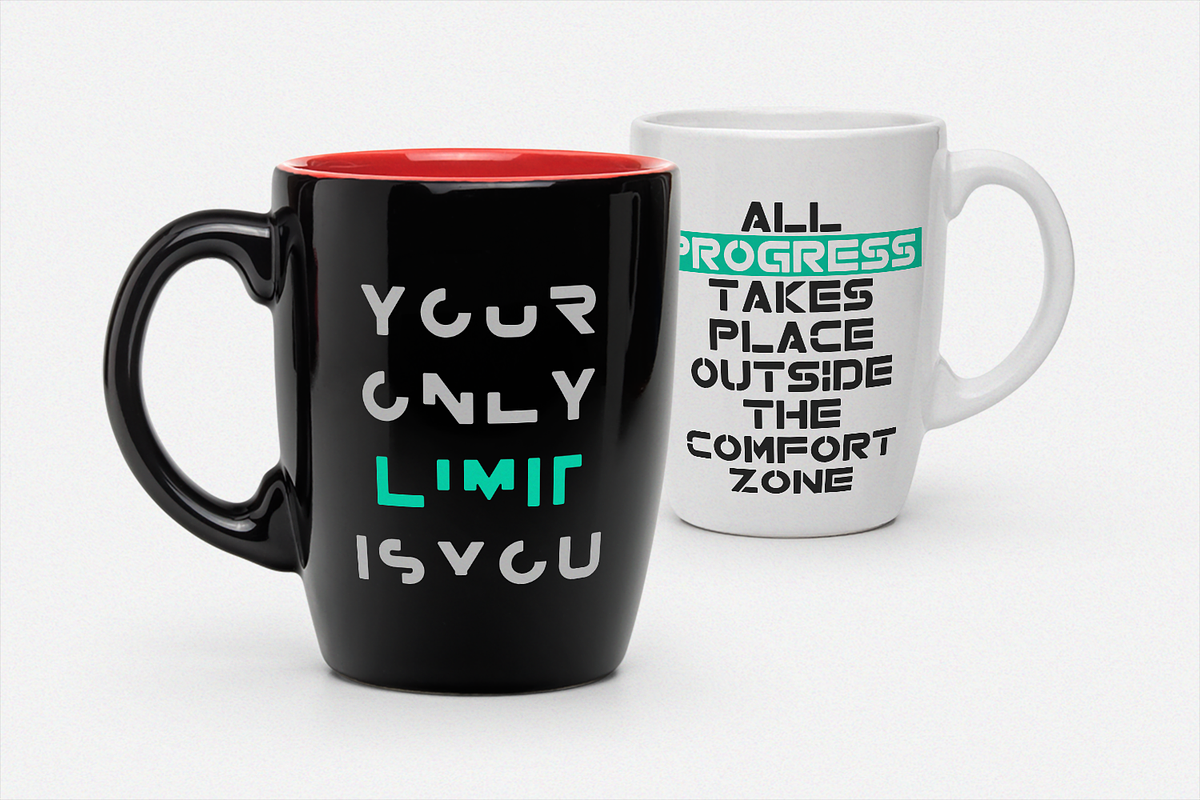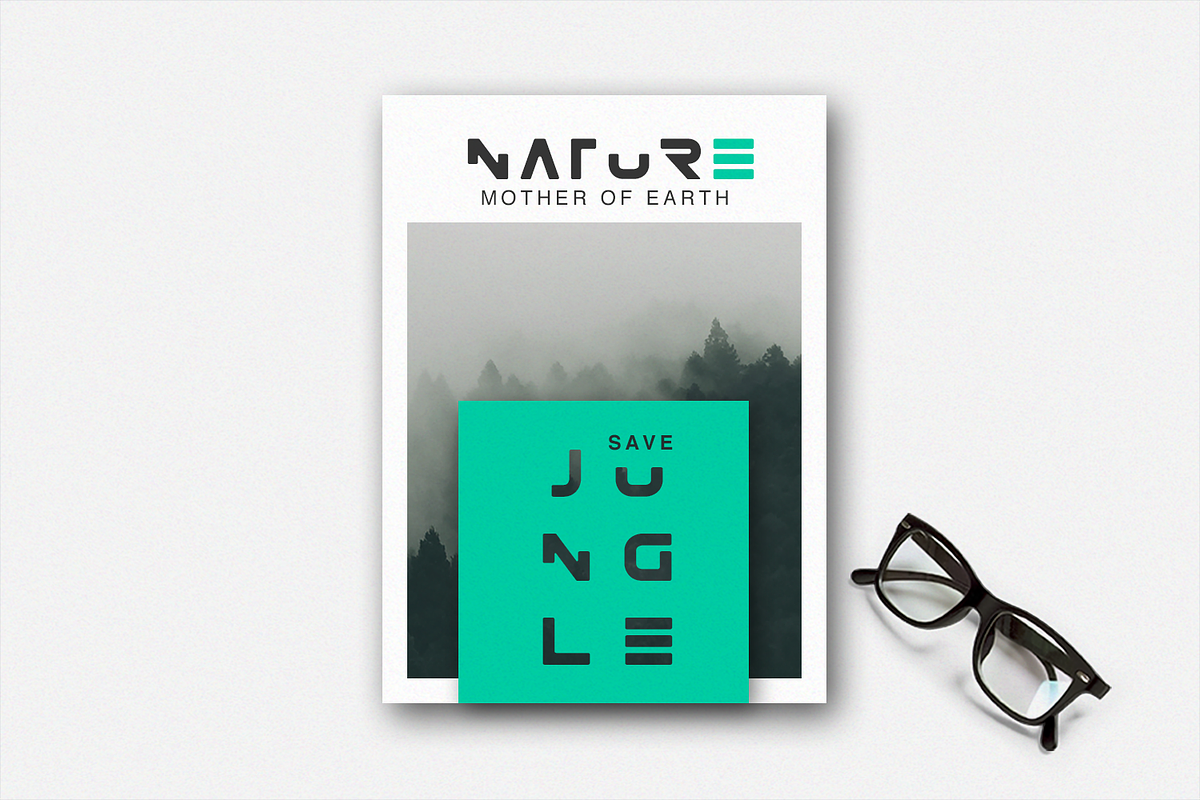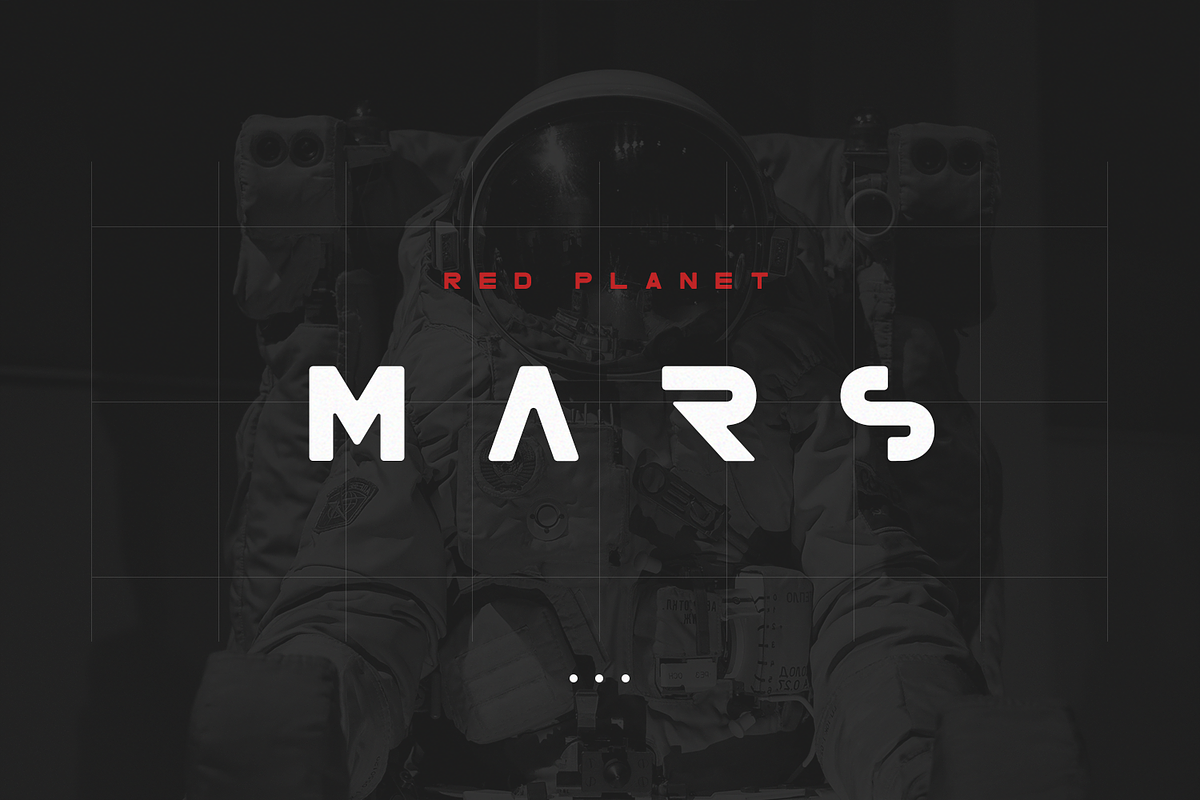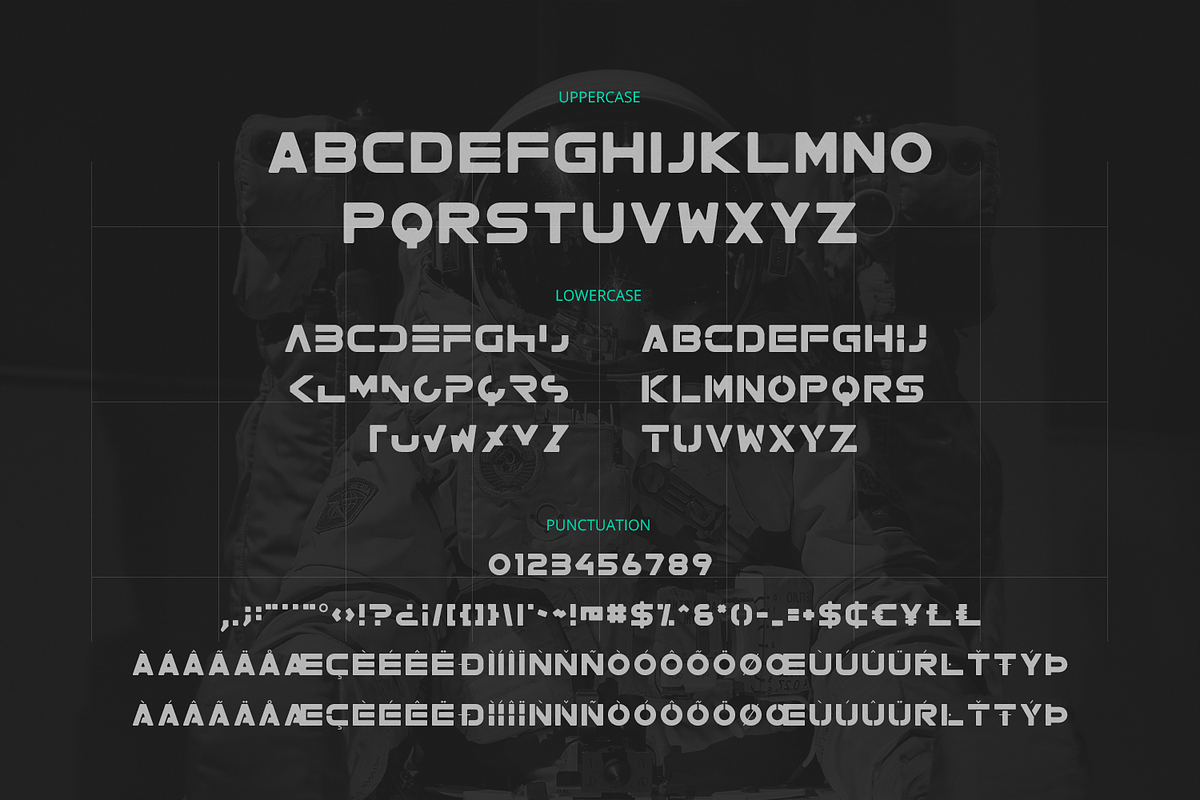
Ichiji Font Duo
Ichiji Font Duo by Factory738 Studio is a font selected for branding, posters, packaging, typography.
- Ichiji One
- Ichiji Two
Ichiji Font Duo by Factory738 Studio fits naturally into Branding, posters, packaging, typography.